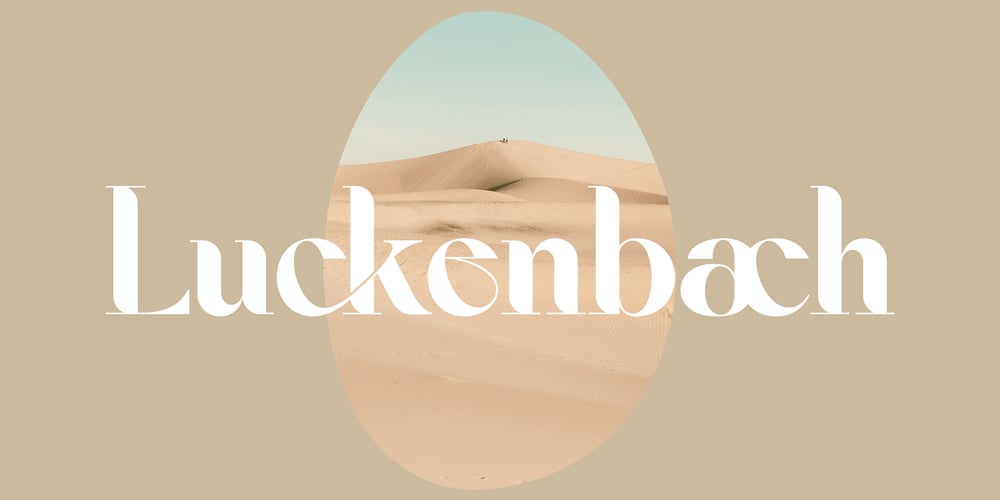
Luckenbach Font Family was designed by Peter Olexa and published by Deeezy. Luckenbach contains 1 styles and family package options. Trendy, bold & modern style serif font for your fancy projects. Elegant, luxury and classic style on Luckenbach font will be great for any branding project. Lot of ligatures will help you to create unique and original logo design or website header! Enjoy ๐